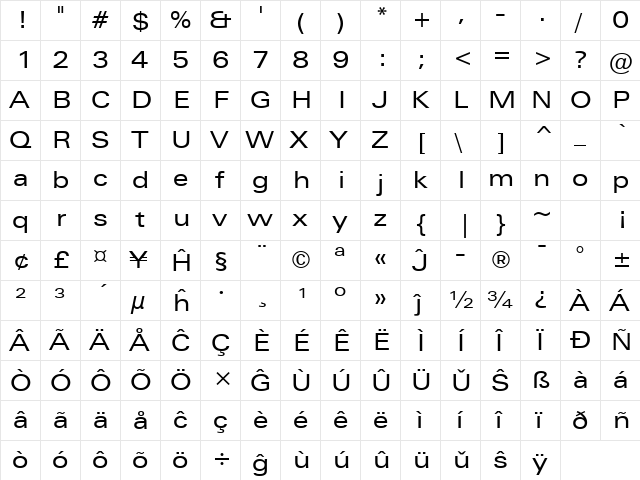
Zurich Eo Regular
Design Context for Zurich Eo Typeface
Zurich Eo offers clean, dependable letterforms without strong stylistic allegiance, making it a practical choice for designers who need flexibility.